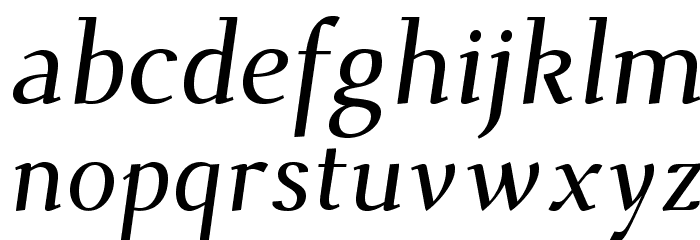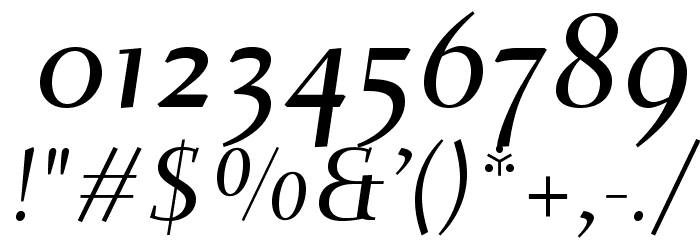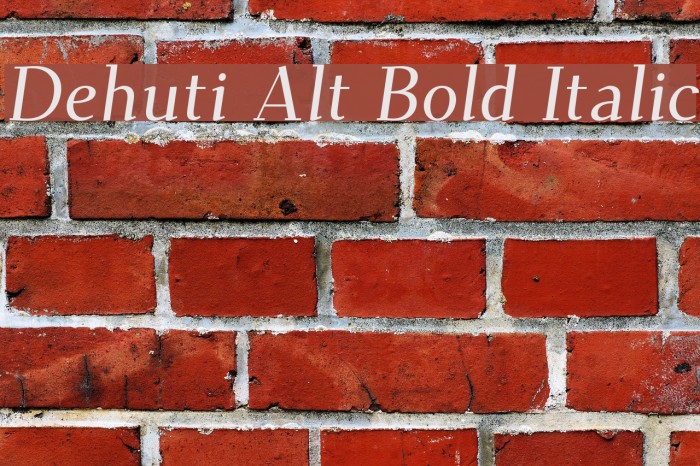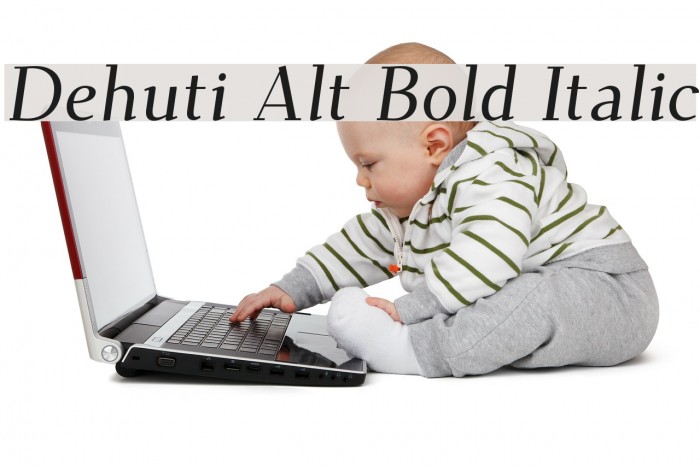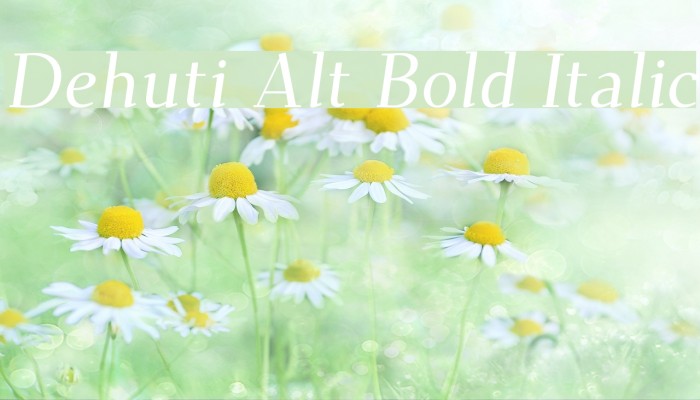
Dehuti Alt Bold Italic Font
This font exhibits a sophisticated and elegant style, characterized by its italicized form and bold weight. The serifs are pronounced, adding a classic touch to the overall design. The characters are slightly condensed, which enhances the formal appearance. The contrast between thick and thin strokes is medium, providing a balanced and readable text. The numerals and special characters maintain the same stylistic features, ensuring consistency across all elements. This font is suitable for projects that require a touch of elegance and sophistication, such as formal invitations, branding for luxury products, or editorial design.
Elegant, bold italic serif font with medium contrast and condensed spacing.
- Proposed Projects: Ideal for luxury branding, formal invitations, and editorial design.
- Category: Serif
- Character Spacing: Tight
- Overall Style: Classic
- Use Case: Headlines, Logos, Editorial design